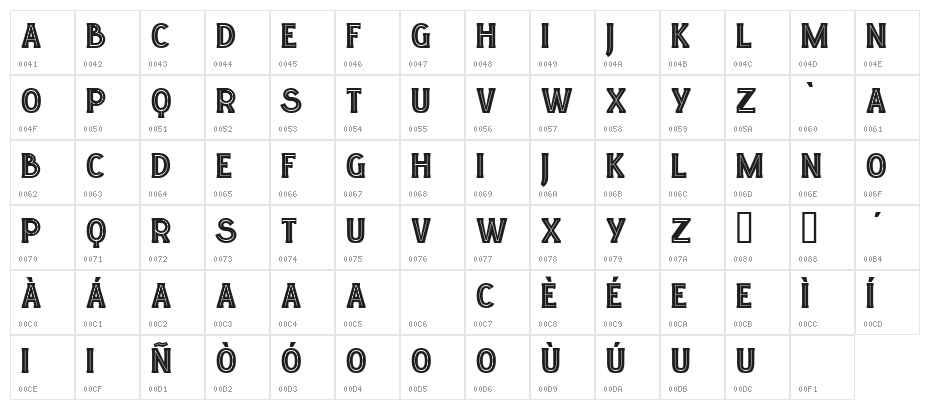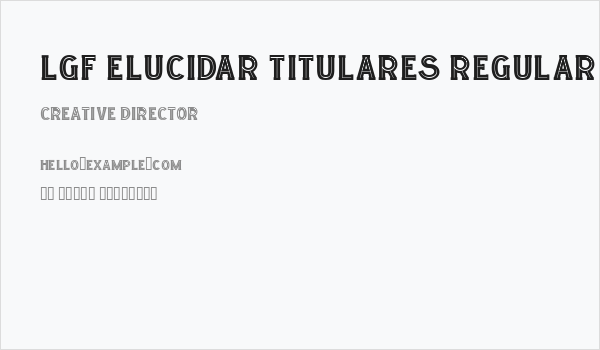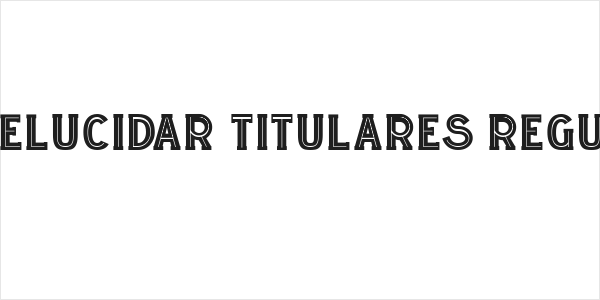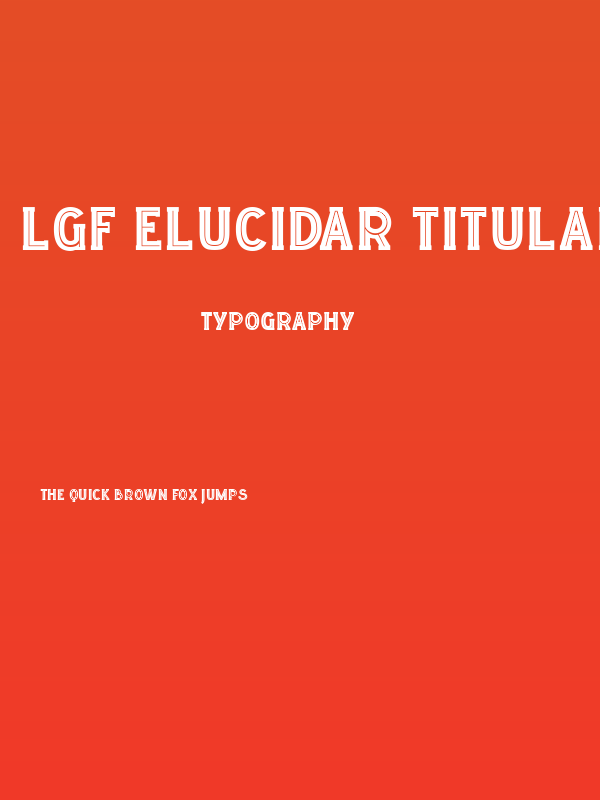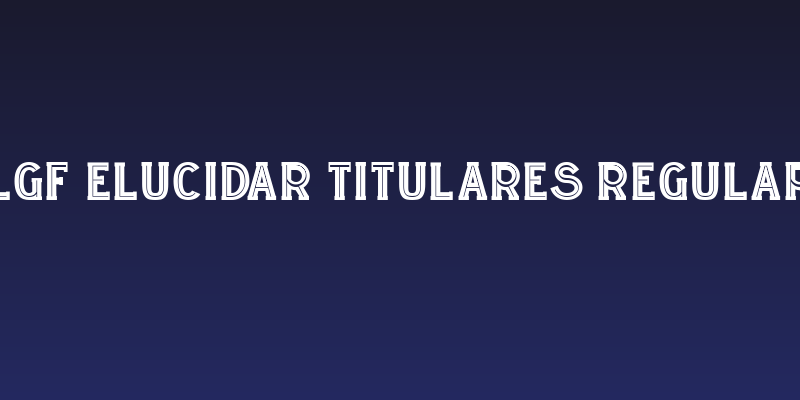
LGF ELUCIDAR TITULARES Regular Font
LGF ELUCIDAR TITULARES Regular Description
This font features a bold and structured design with a strong presence. The characters are outlined with a thick border, giving them a three-dimensional effect. The uppercase letters are uniform in height and width, creating a cohesive and balanced appearance. The font has a modern and industrial feel, making it suitable for impactful headlines and titles. The geometric shapes and clean lines contribute to its readability, while the boldness ensures it stands out in any design context. The font's style is both contemporary and versatile, allowing it to be used in various creative projects.
| Proposed Projects | Ideal for headlines, posters, branding, and advertising materials. |